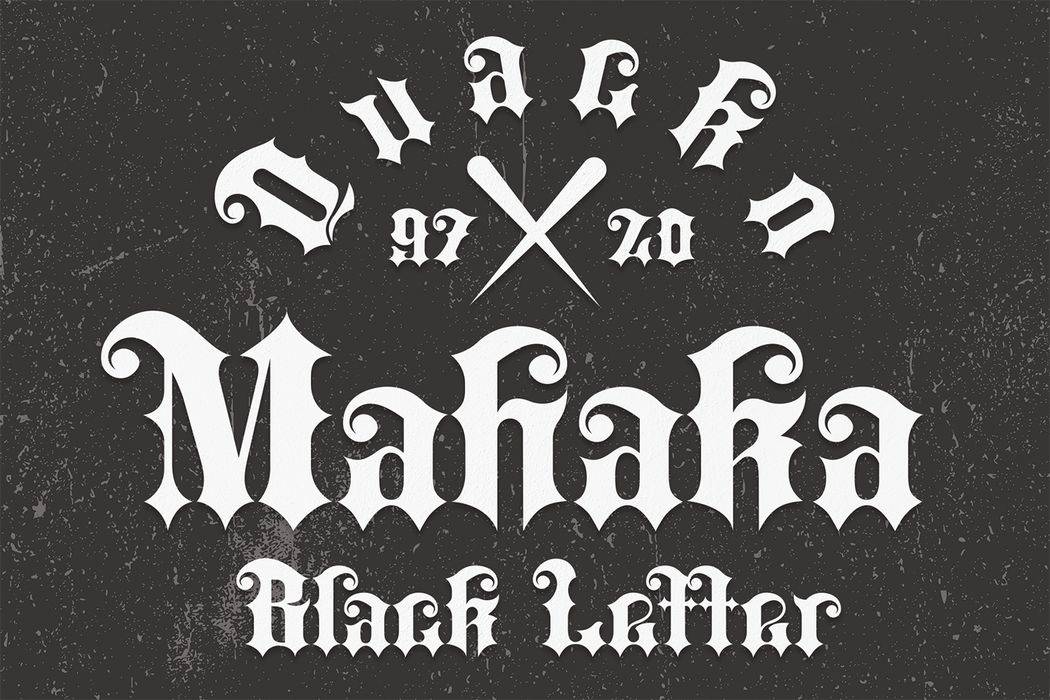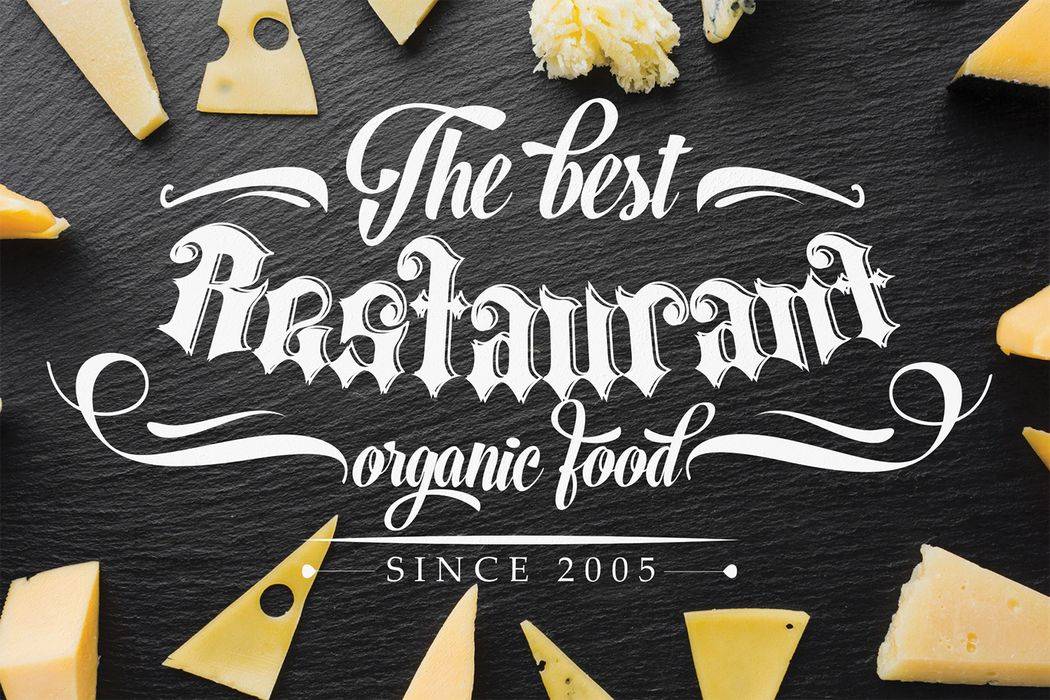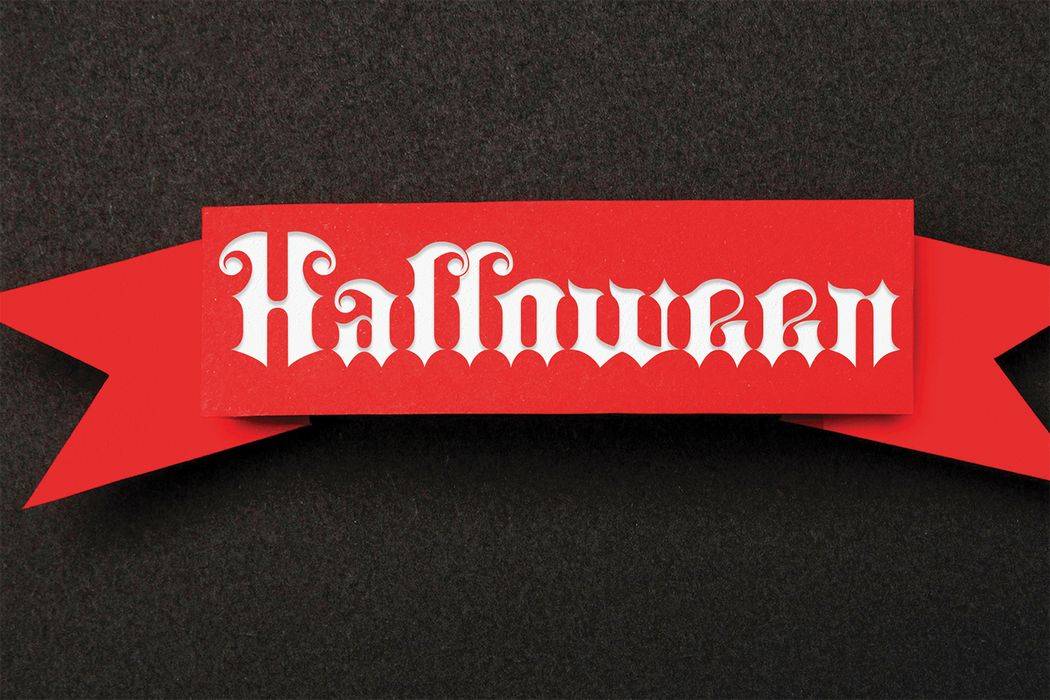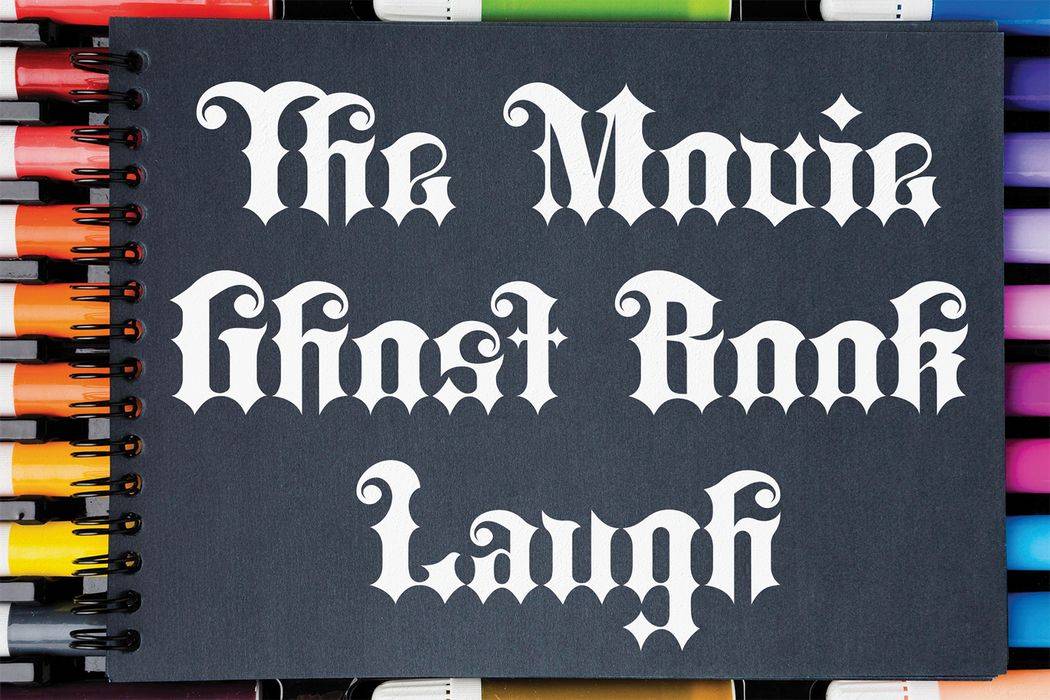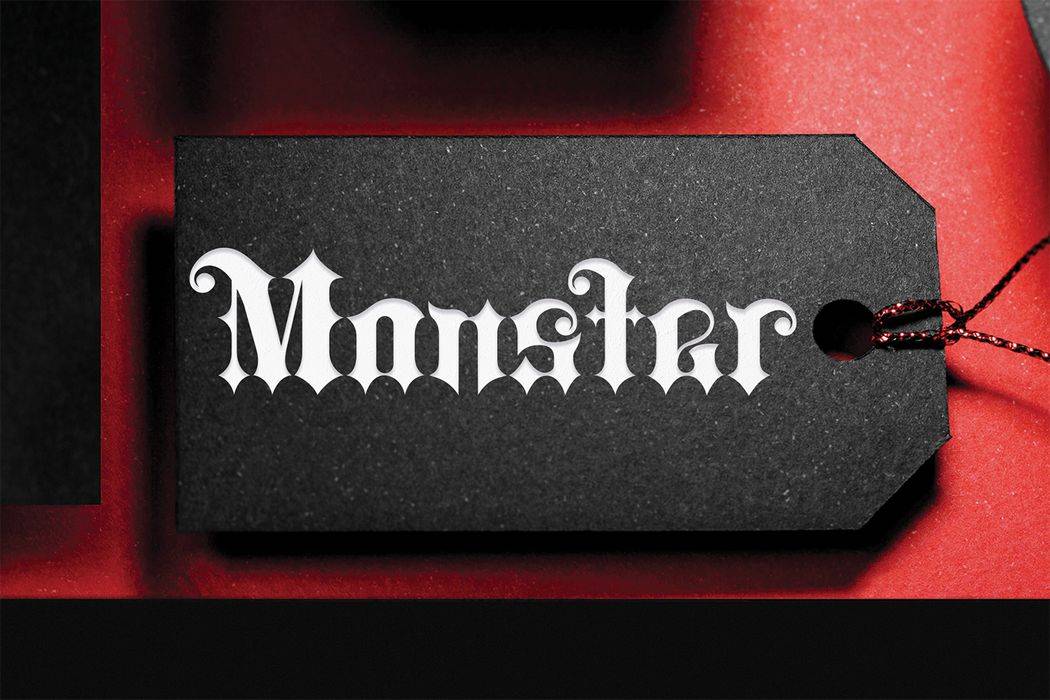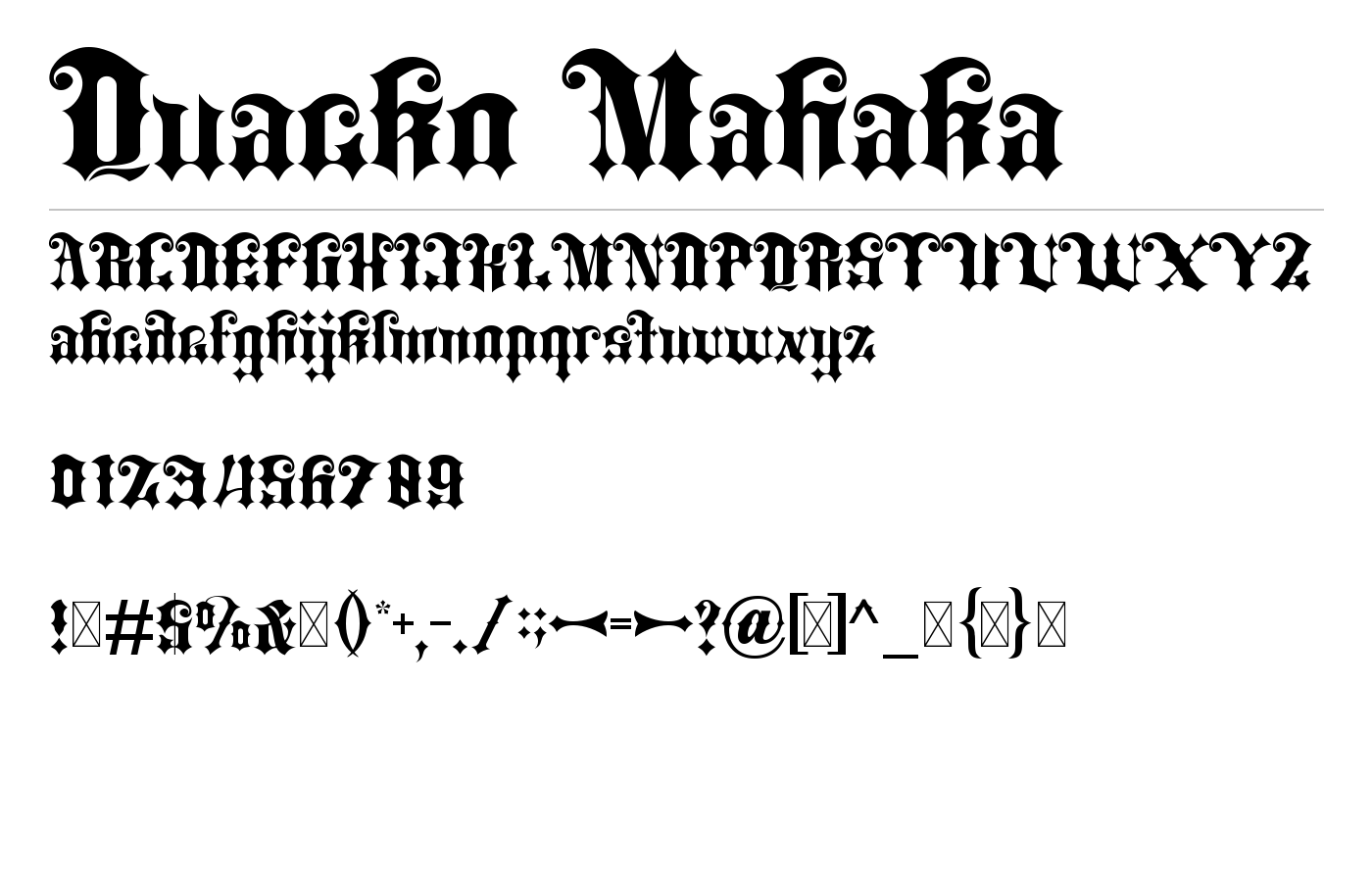
Quacko Mahaka is a bold, blackletter-style serif font with a strong gothic influence, featuring dramatic sharp edges and intricate decorative curls. Its high contrast between thick and thin strokes and condensed letterforms give it a striking, vintage feel that suits logos, headlines, and designs seeking a historical or mysterious atmosphere. This font works best for impactful, decorative use where its ornate character can shine without sacrificing legibility.
Quacko Mahaka Font
About Quacko Mahaka Font